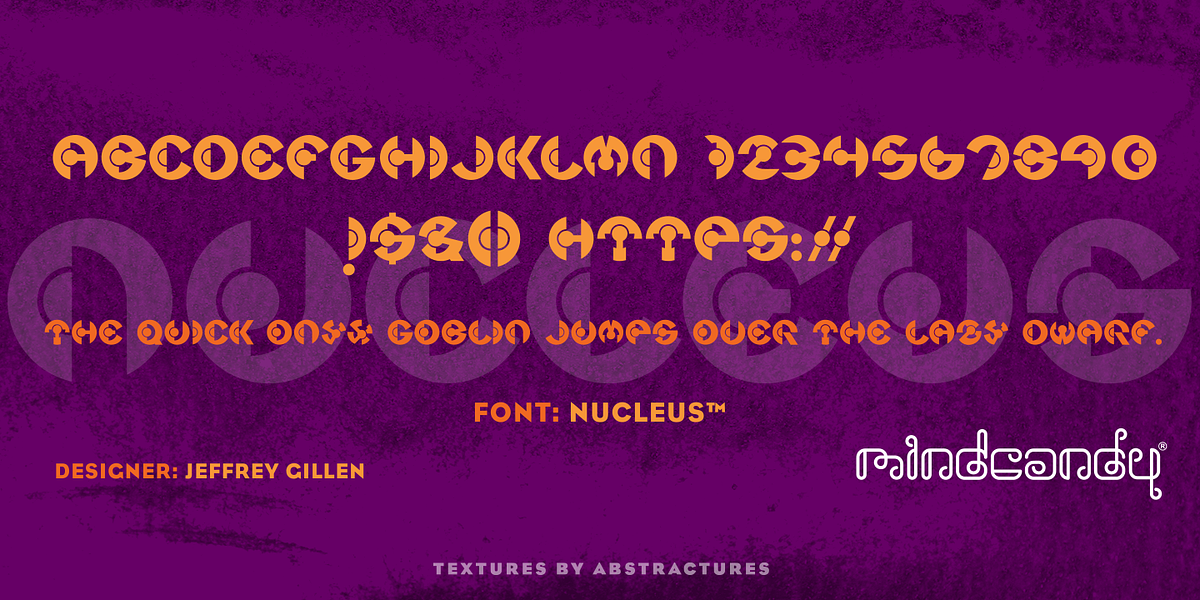
Nucleus™
This font is a playful circular display font designed by Jeff Gillen. Its unique shape and whimsical nature make it suitable for branding and headlines.